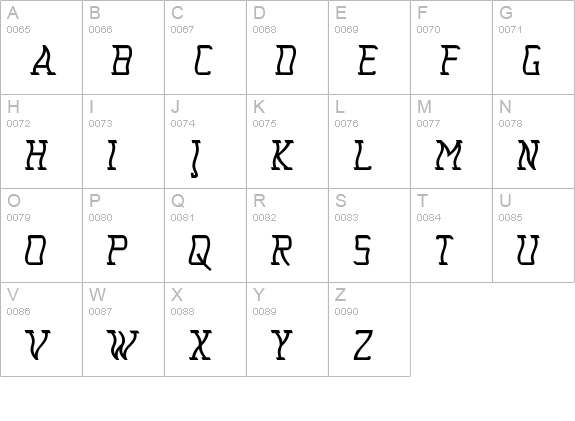
SeasickMirror Bold Font Details
SeasickMirror Bold is a strong, high-contrast variant in the SeasickMirror typeface family \xE2\x80\x94 well suited to headlines, attention-grabbing titles, and strong calls-to-action.
Introducing SeasickMirror Bold, a captivating and versatile font that is sure to make a bold statement in any design project. With its unique and eye-catching letterforms, this font is perfect for adding a touch of elegance and sophistication to your creations. SeasickMirror Bold embodies a harmonious balance between modernity and timeless appeal. Its bold and strong appearance commands attention, while its subtle curves and delicate details add a touch of grace and refinement. Whether used for headlines, logos, posters, or any other design application, this font is guaranteed to leave a lasting impression. What sets SeasickMirror Bold apart is not just its exceptional design, but also its accessibility. It is freely available to download at FontsMarket.com, allowing designers and enthusiasts alike to easily incorporate this stunning font into their projects without any limitations. This means that you can unleash your creativity and explore the endless possibilities that SeasickMirror Bold offers, without worrying about any restrictions. The versatility of SeasickMirror Bold knows no bounds. It effortlessly adapts to various design styles, from modern and minimalist to vintage and retro. Its strong presence on both digital and print media ensures that your message will be conveyed with utmost clarity and impact. So why settle for ordinary when you can elevate your designs with SeasickMirror Bold? Download this remarkable font from FontsMarket.com today and embark on a journey of artistic expression and visual brilliance. Let SeasickMirror Bold become your creative companion, as it adds a touch of sophistication and flair to your designs, making them truly unforgettable.